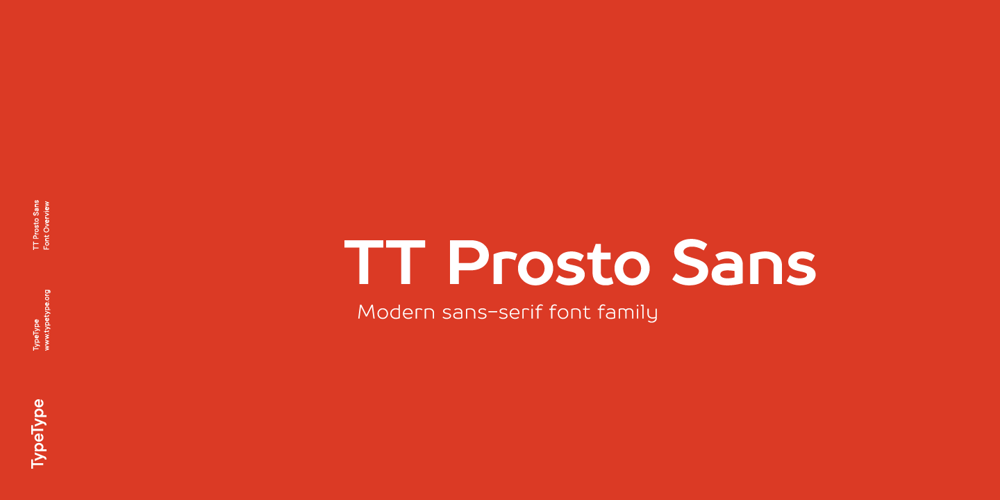
TT Prosto Sans
TT Prosto Sans font
TT Prosto Sans Font Family was designed by Ivan Gladkikh, TypeType Team and published by TypeType. TT Prosto Sans contains 10 styles and family package options. Prosto Sans – this font family for any occasion. You can use these fonts almost everywhere. The modern open grotesque forms and classic font family formula: Thin, Light, Regular, Bold, Black and Italics. Prosto Sans is the assistant to work for any projects. Optimized for the websites, mobile applications, and printing materials. We offer you to have a look at this font’s narrow version, which is called TT Prosto Sans Condensed.